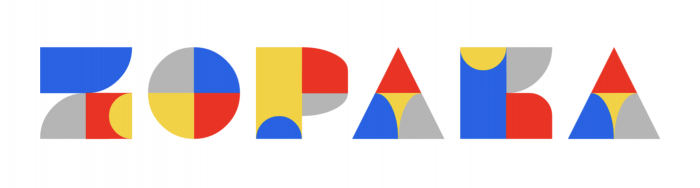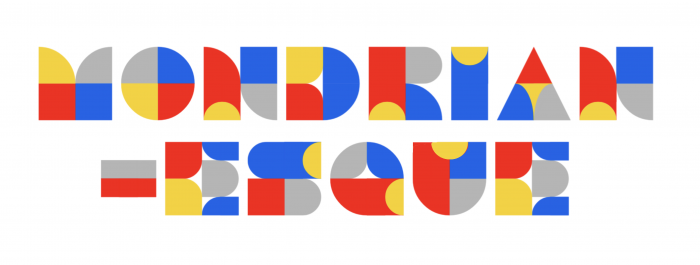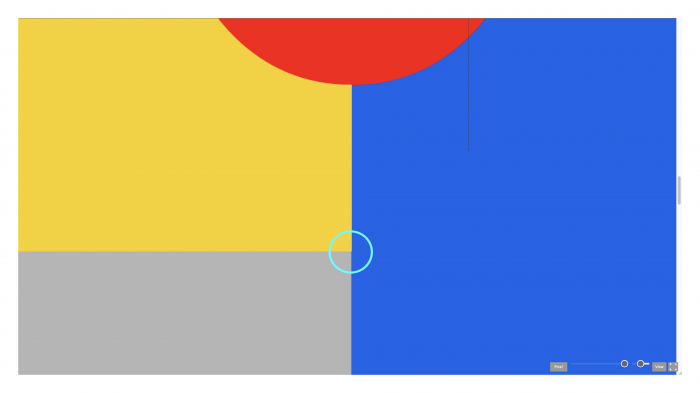
Another mondrian-esque, colourful and minimalist font. Unicase with alternates.
Looks great!
Some of the boundaries between yellow and blue don't look very precise. For example, in the letter H, like excess pixel. Is this an optical illusion?
@Evgeny Koroletov: Eagle eye! There's a minimal overlap between the yellow and blue, but it's inherent to the layers and order that FS offers. In a way, it's an "unforced" optical illusion. Thanks for your support.
Nice. Liking how every glyph has something unique happening with it.
Looks like Ztructure eYe/FS Sample but then original is black (ZTRUCTURE EYE/FS)
A lovely Mondrianesque font and a strong contest entry~
Beautiful work, maybe even more Bauhaus than Mondrian.
@elmoyenique The previewer adds like a pixel of outline around each brick probably to cover any seams within the brick grid. I'm not sure when it was doing that, but it does that in the previewer. The downloaded font shouldn't have the same issues.
You just keep getting better and better.